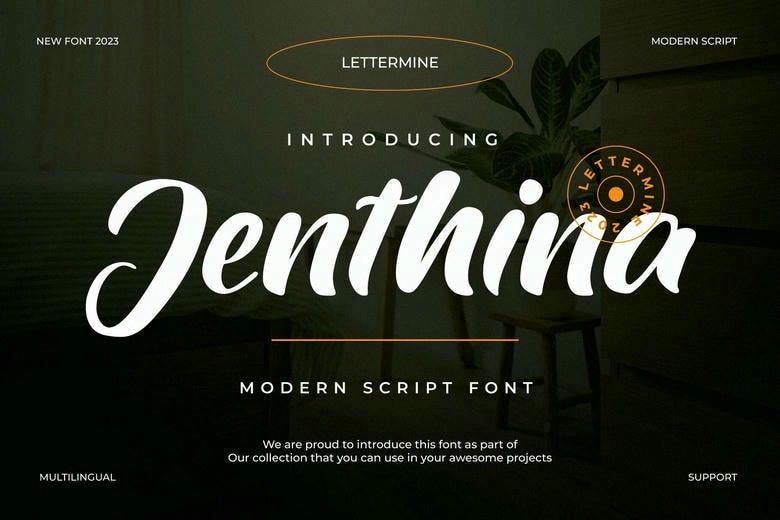
Jenthina Font
Jenthina is a script font typeface that radiates grace and sophistication for any copy it will be used on. Its curves and shiny embellishments entice the gaze and hence it is ideal for weddings, logo designs, or billboards. Due to the complex geometry and smooth lines Jenthina looks became universal and can add elegance to any design concept.
Jenthina Script Font